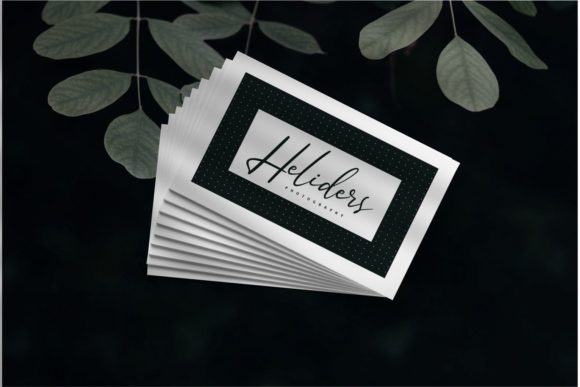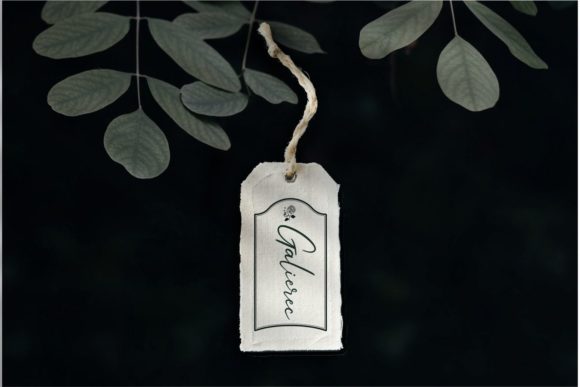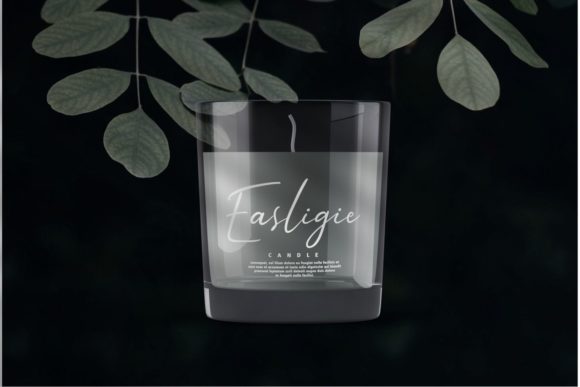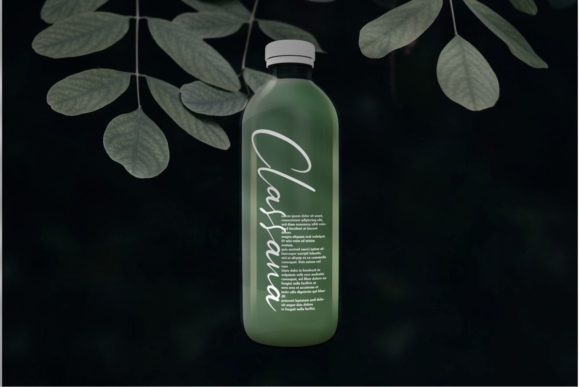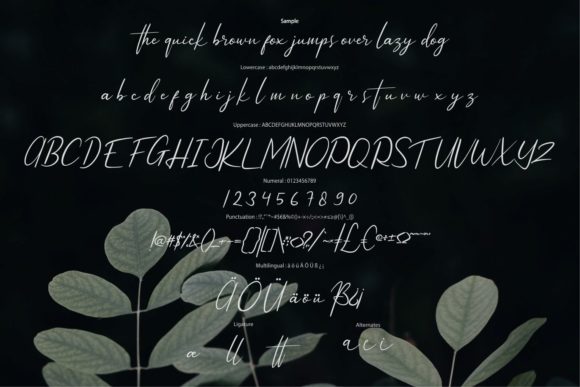
Catiseye Font: Elevate Your Designs with Elegance and Personality
In the world of typography, fonts play a crucial role in conveying the tone and style of a design. For those seeking a unique and elegant handwritten font, Catiseye is an excellent choice. This beautiful font is perfect for adding a personalized touch to various designs, including wedding invitations, thank you cards, weddings, greeting cards, logos, and more.
What Makes Catiseye Font Stand Out?
Catiseye is a one-of-a-kind handwritten font that exudes elegance and sophistication. Its unique characteristics make it an ideal choice for designers and crafters looking to add a personal touch to their work. Here are some features that set Catiseye apart:
- Handwritten with love: Catiseye is a carefully crafted handwritten font, giving it a warm and intimate feel.
- Elegant and refined: The font’s elegant strokes and refined lines make it perfect for designs that require a touch of sophistication.
- Versatile: Catiseye looks beautiful on a variety of designs, from wedding invitations to logos, and can be used in multiple contexts.
Catiseye font is an excellent choice for a wide range of creative projects, including:
- Wedding Invitations: Add a touch of elegance and romance to your wedding invitations with Catiseye.
- Thank You Cards: Express your gratitude with beautifully designed thank you cards featuring Catiseye.
- Greeting Cards: Create stunning greeting cards for special occasions, such as birthdays, anniversaries, and holidays.
- Logos: Use Catiseye to create unique and memorable logos for your business or brand.
Why Designers and Crafters Love Catiseye
Designers and crafters adore Catiseye for its versatility, elegance, and ability to add a personal touch to their work. Here are some reasons why:
- Easy to read: Catiseye is clear and easy to read, making it perfect for designs that require a high level of legibility.
- Customizable: The font can be easily customized to fit your design needs, allowing you to experiment with different styles and effects.
- Unique and exclusive: Catiseye is a one-of-a-kind font, ensuring that your designs stand out from the crowd.
Tips for Using Catiseye Font
To get the most out of Catiseye, here are some tips for using the font:
- Pair with complementary fonts: Combine Catiseye with complementary fonts to create visually appealing designs.
- Experiment with colors: Try out different colors and textures to add depth and interest to your designs.
- Keep it simple: Don’t be afraid to keep your design simple and elegant, allowing Catiseye to take center stage.
Catiseye font is a beautiful and elegant handwritten font that can elevate your designs with its unique and personalized style. Whether you’re a designer or crafter, Catiseye is an excellent choice for adding a touch of sophistication and elegance to your work. With its versatility, legibility, and customizability, Catiseye is sure to become a favorite in your design arsenal.